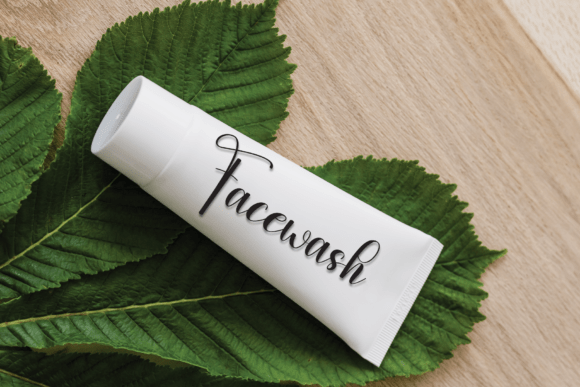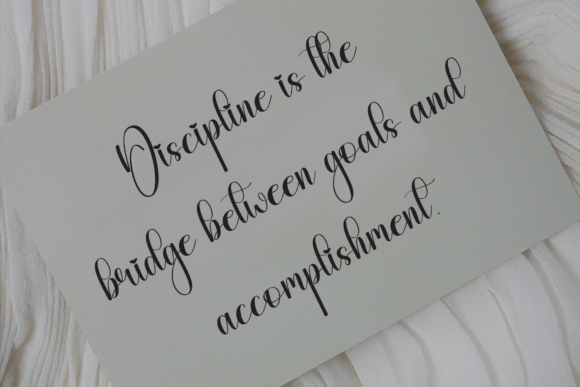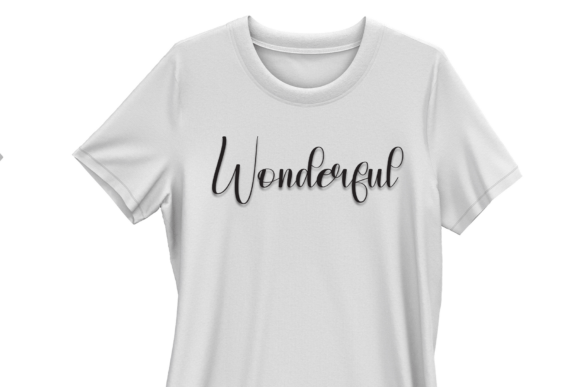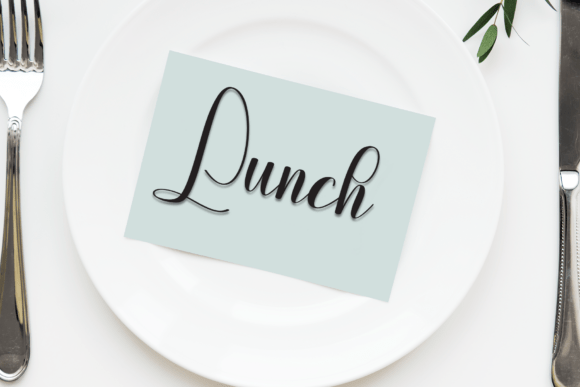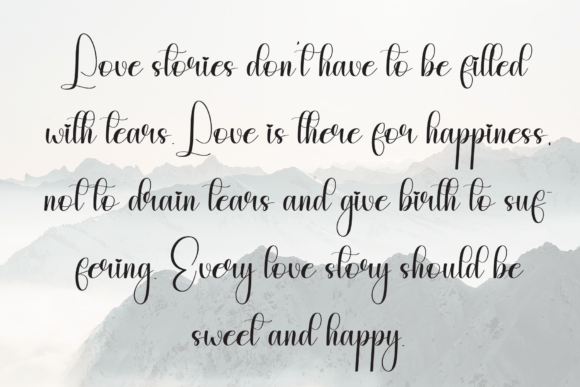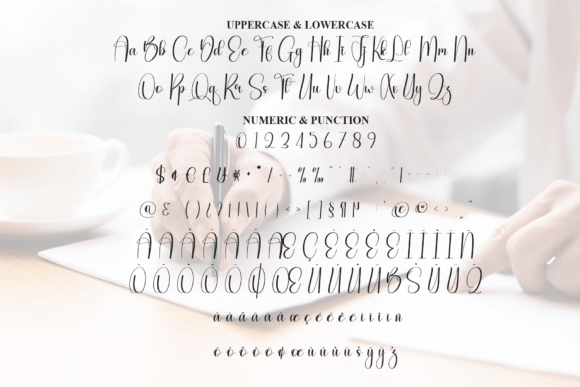
Introduction to Simpleday Signature Font
Simpleday Signature is a graceful and expressive script font with a true handwritten feel.
Featuring stylish swashes and a heart dot on the โiโ, itโs perfect for signature logos, stationery, branding, and romantic designs .
Key Features of Simpleday Signature Font